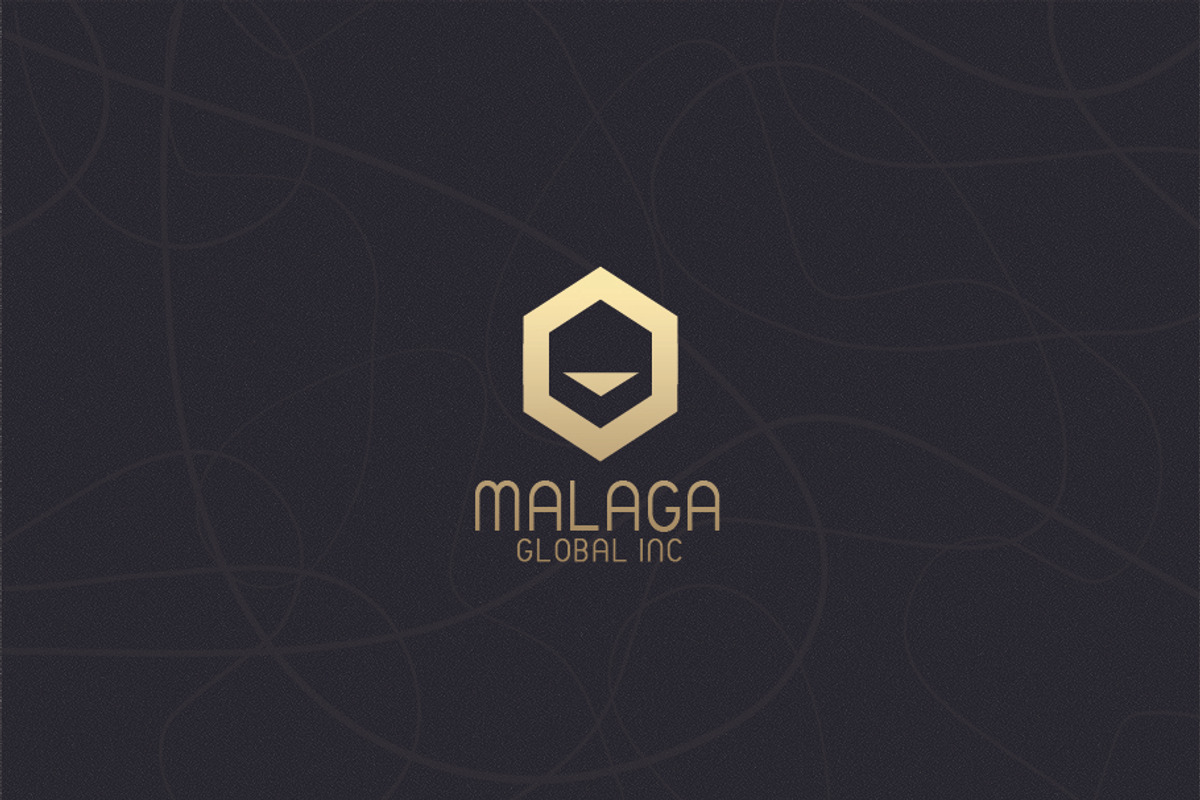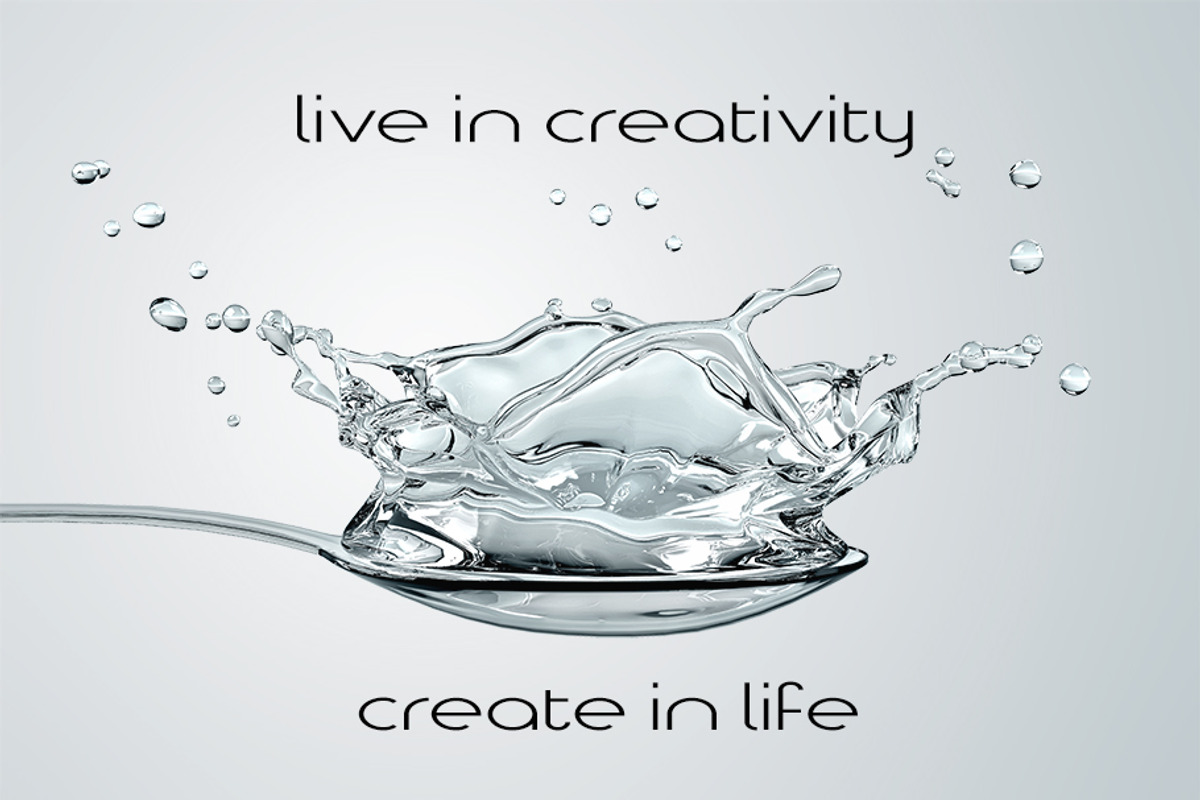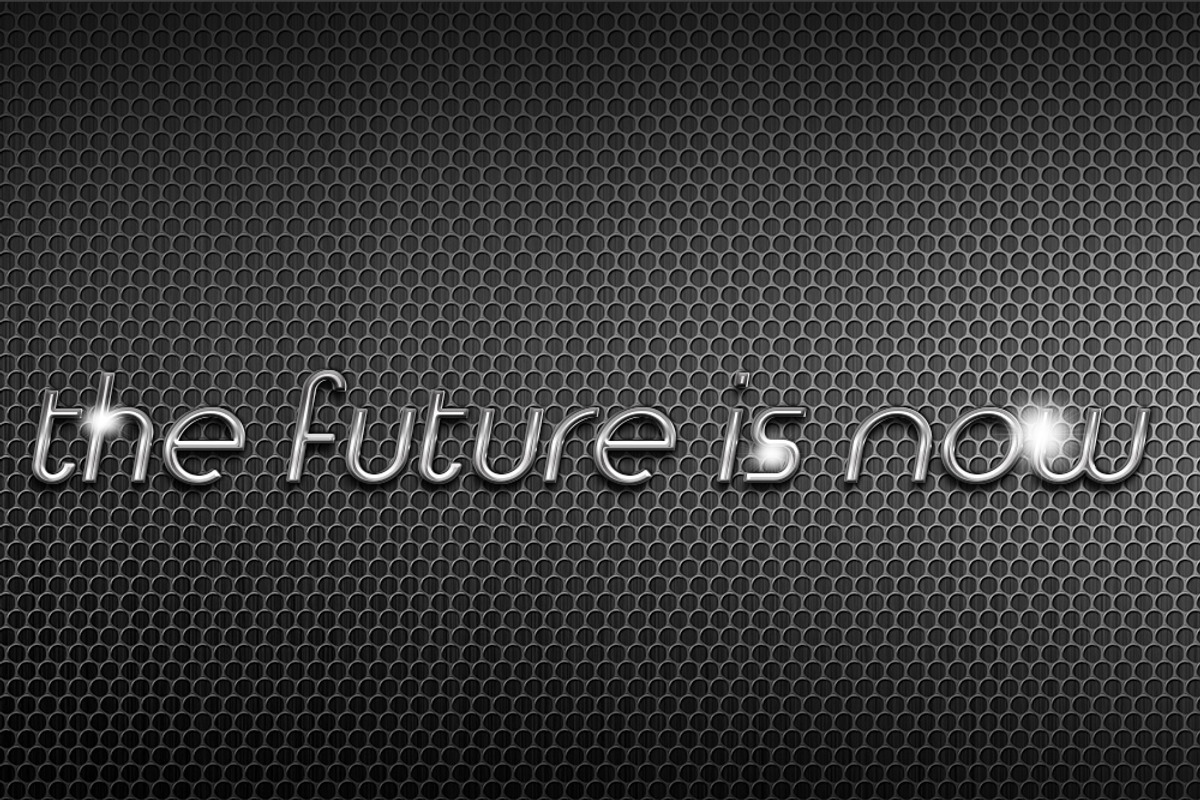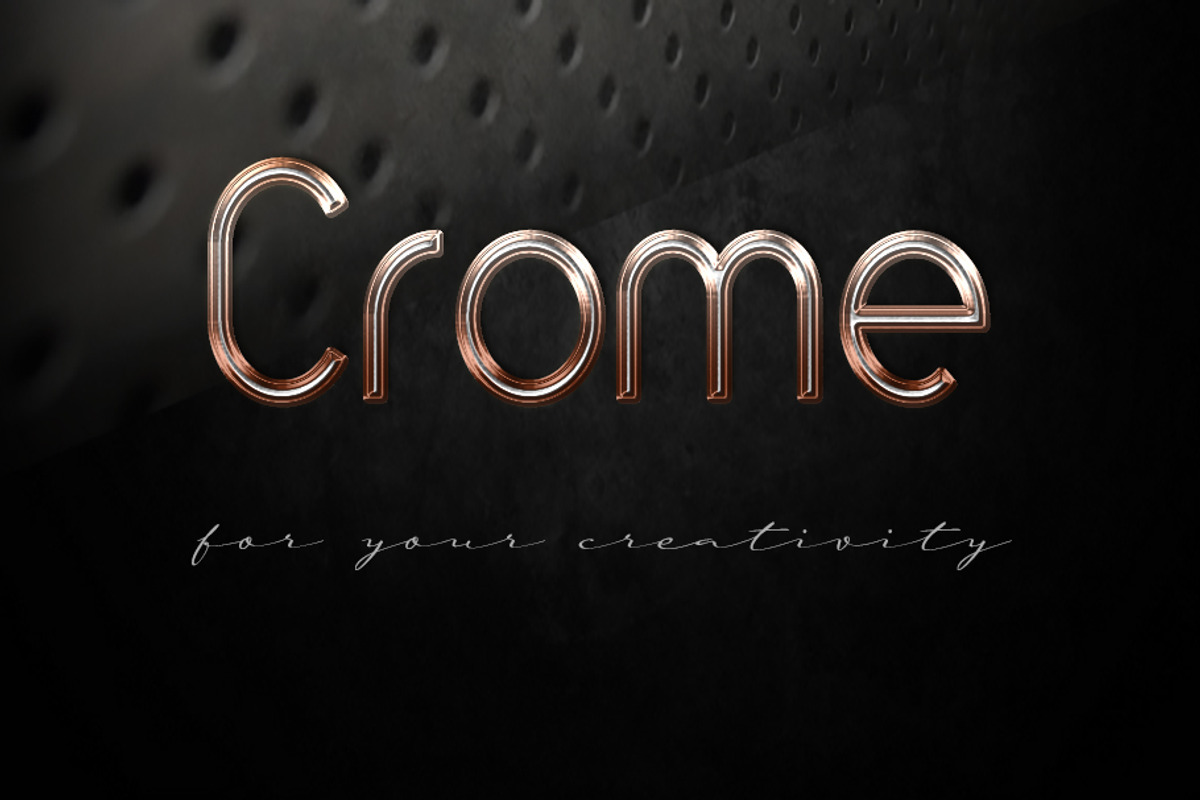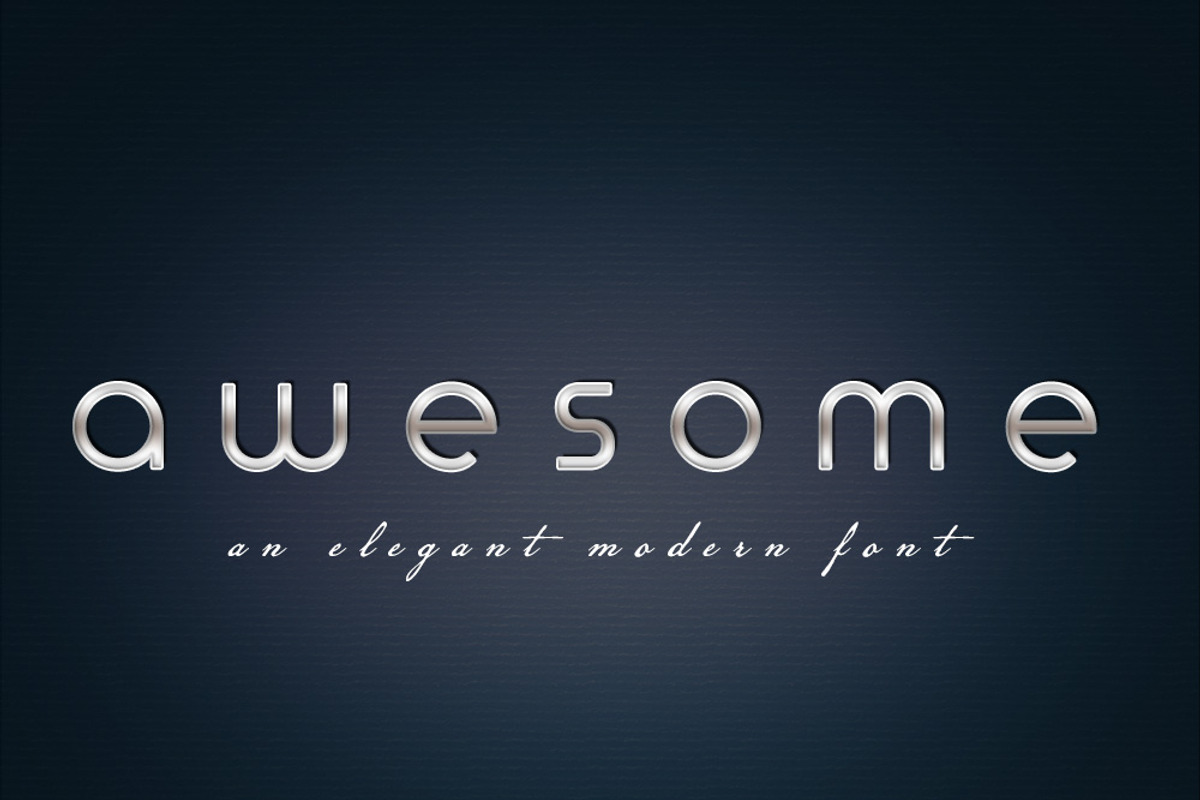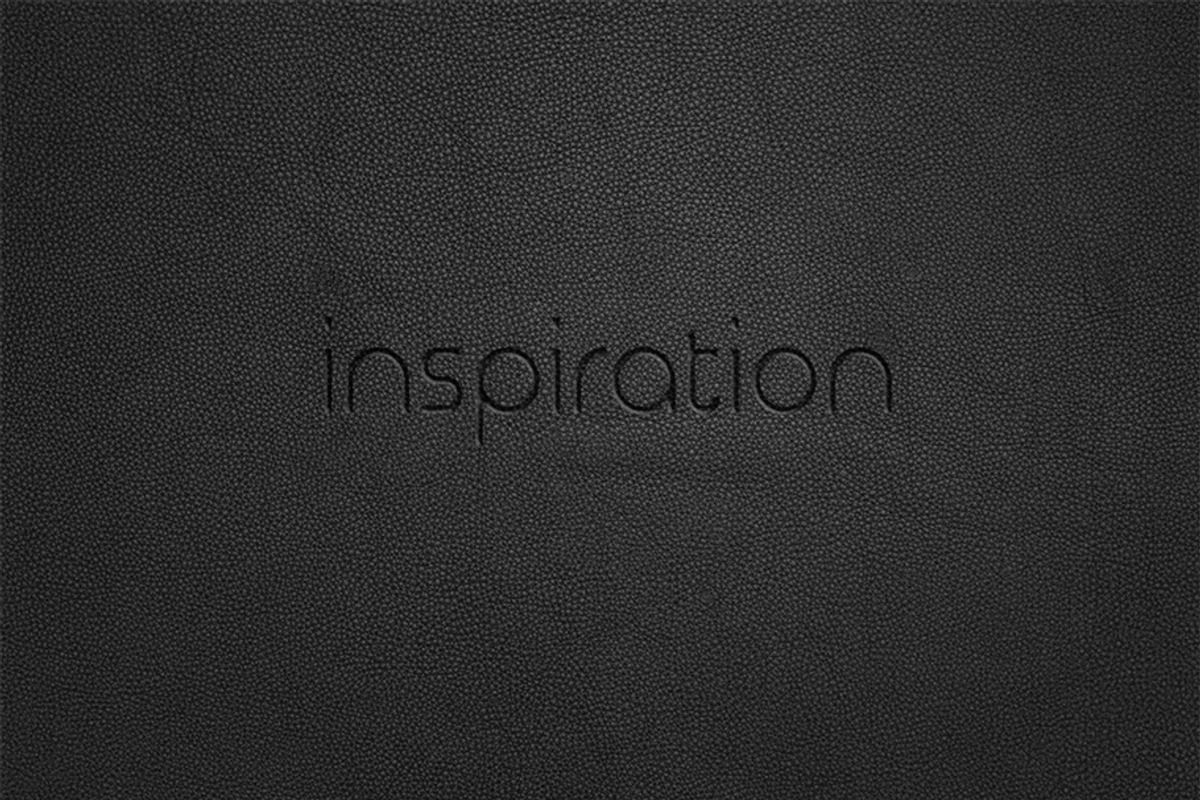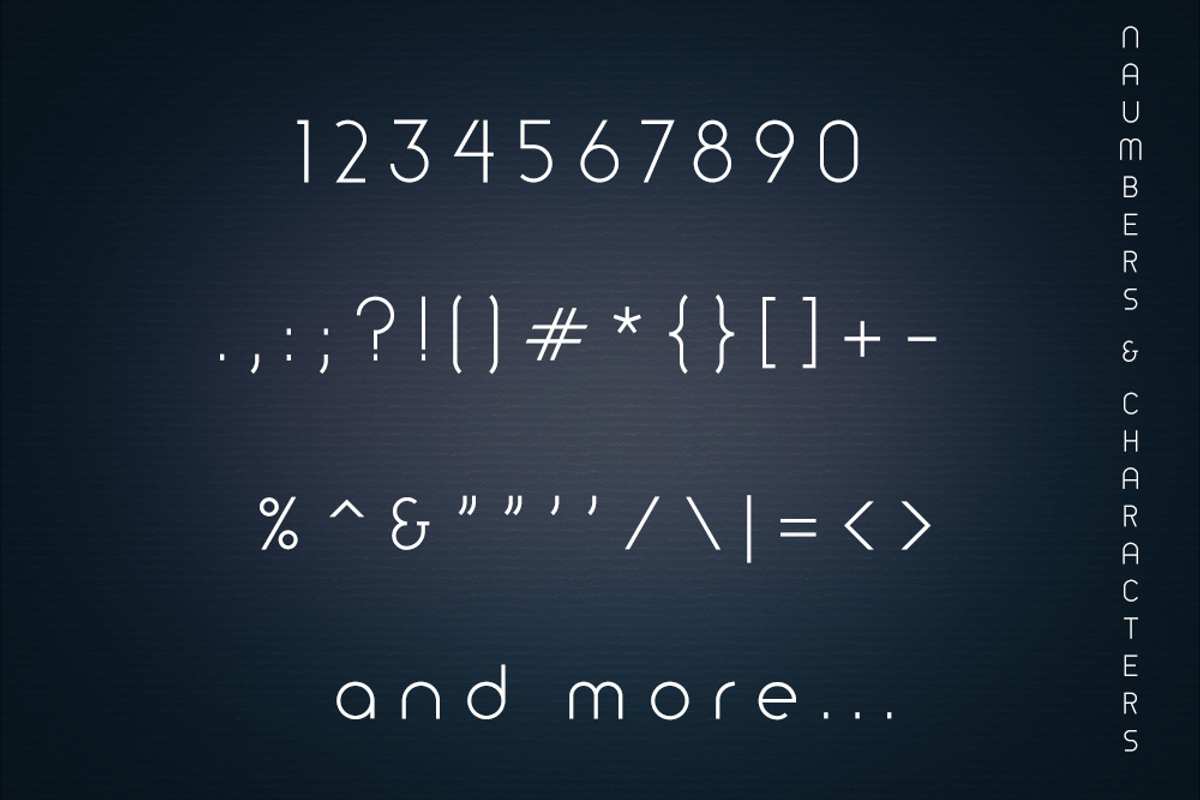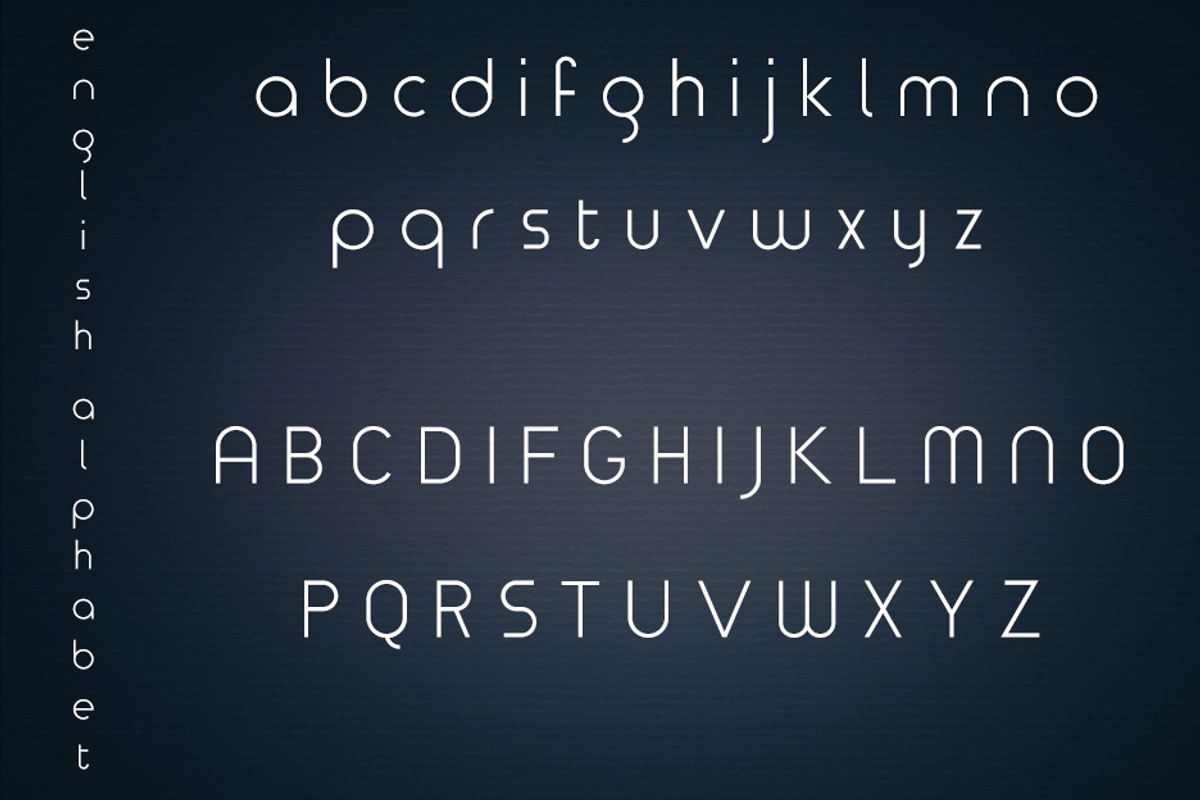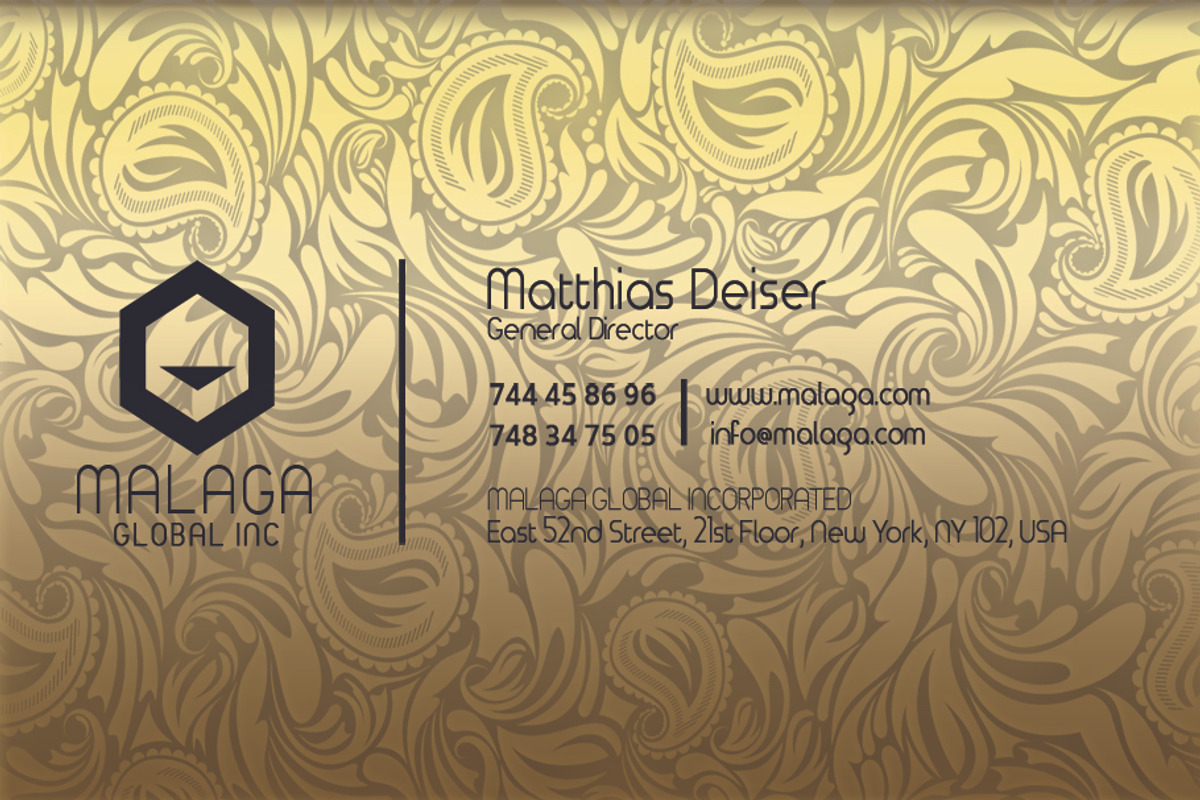
Awesome
Awesome font. Suitable for all types of projects: postcards, web design, logos, icons and titles. Beautiful font. It includes uppercase and lowercase letters, numbers and punctuation marks.
Awesome is also included full set of:
- All uppercase and lowercase letters
- numerals
- punctuation